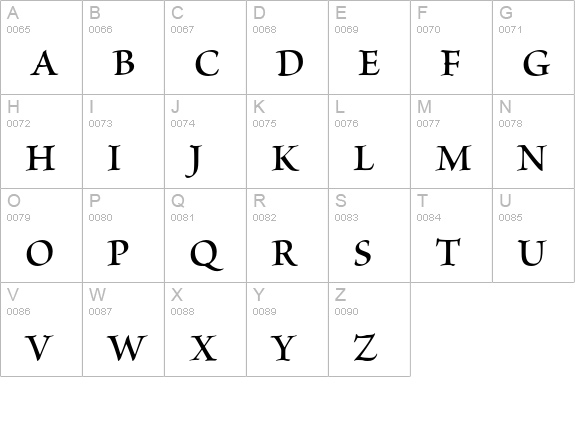
Brioso Pro Semibold Subhead Font Details
Brioso Pro Semibold Subhead is a sub-bold, structured variant in the Brioso typeface family \xE2\x80\x94 well suited to sub-headlines and emphasised passages.
Brioso Pro Semibold Subhead font embodies a perfect balance of sophistication and modernity, making it an ideal choice for conveying a sense of authority and elegance in your design projects. With its strong and commanding presence, this font is sure to captivate viewers and leave a lasting impression. What sets Brioso Pro Semibold Subhead apart is its versatile nature, allowing it to be used across a wide range of applications including editorial design, branding, and advertising. The bold and impactful letterforms exude confidence and style, while the subtle details add a touch of refinement. And the best part? Brioso Pro Semibold Subhead font is available for free download at FontsMarket.com. So go ahead and elevate your designs with this exceptional typeface that combines classic charm with a contemporary edge.